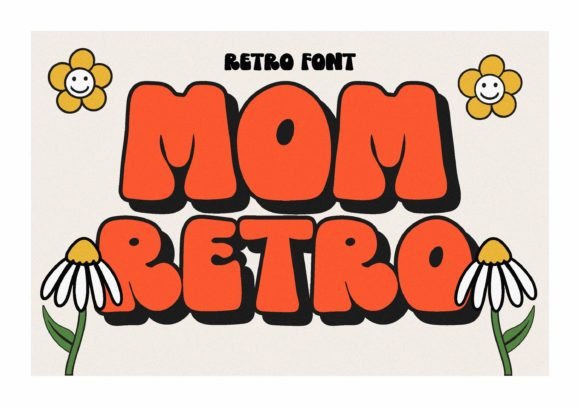
Introducing Mom Retro Font, the best font for print logos that will add a delightful and vibrant touch to your designs. Created by the talented komsan_ks, this incredibly cute and assertive display font will captivate your audience and make your creations stand out from the crowd.
With Mom Retro Font, you can instantly infuse your party invitations, gatherings, and any design project with a refreshing burst of youth and joy. This font is perfect for those looking to create a playful and energetic atmosphere, making it ideal for children's events, vibrant celebrations, and any occasion that calls for a touch of whimsy.
Embrace the power of Mom Retro Font and let its unique style speak volumes about your brand. Its eye-catching design will leave a lasting impression on your target audience, ensuring that your message is conveyed with utmost clarity and impact. Whether you're designing a logo, a poster, or a social media graphic, this font will effortlessly elevate your visual content.
Featuring a wide range of characters and glyphs, Mom Retro Font allows you to unleash your creativity and customize your designs to perfection. Its versatility enables you to experiment with different typographic styles and create endless possibilities. From bold headlines to charming taglines, this font will bring your words to life in a truly captivating way.